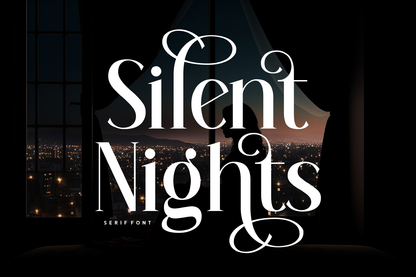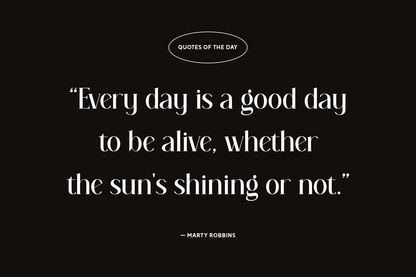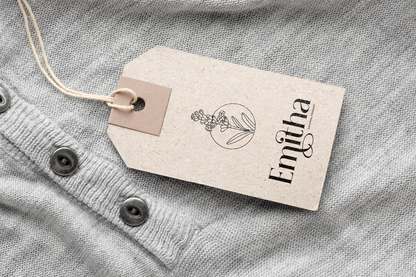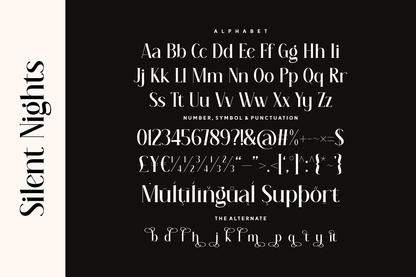
Silent Nights is a graceful serif font wrapped in dreamy curves and delicate swashes, evoking a mood of elegance and mystery. Its soft contrasts and extended flourishes give each letter a lyrical movement—perfect for romantic branding, poetic book covers, or luxury packaging. This font turns quiet sophistication into visual art.
Ideal for designers seeking a balance of drama and class, Silent Nights makes an impression whether used for logos, wedding invitations, or fashion editorials. It’s a font that feels like a soft whisper in a world of noise—elegant, emotional, unforgettable.